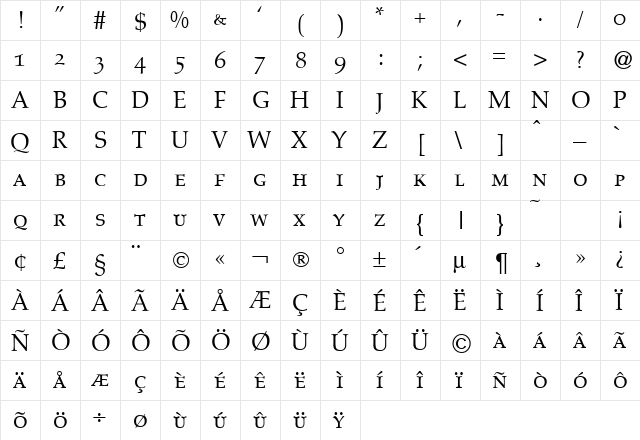
AldoneCapsDB Normal Font Preview
AldoneCapsDB Normal
Design Context for AldoneCapsDB Typeface
AldoneCapsDB offers clean, dependable letterforms without strong stylistic allegiance, making it a practical choice for designers who need flexibility.
Pro Tip: Use AldoneCapsDB in both headline and body roles to test its range before committing to a single application.